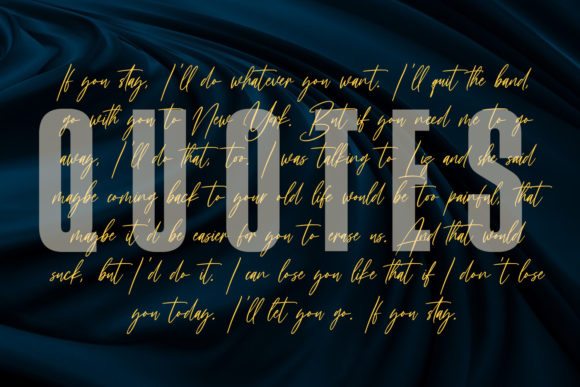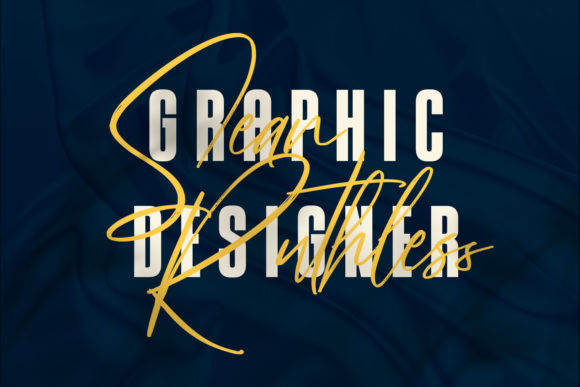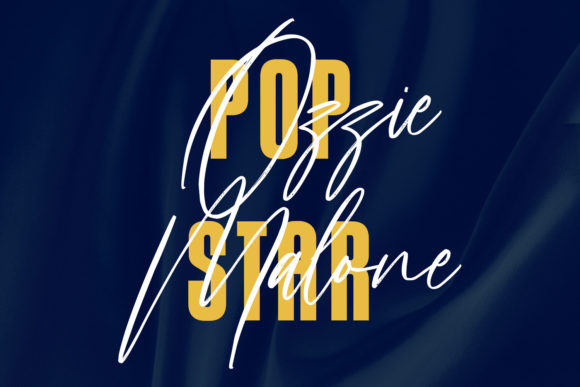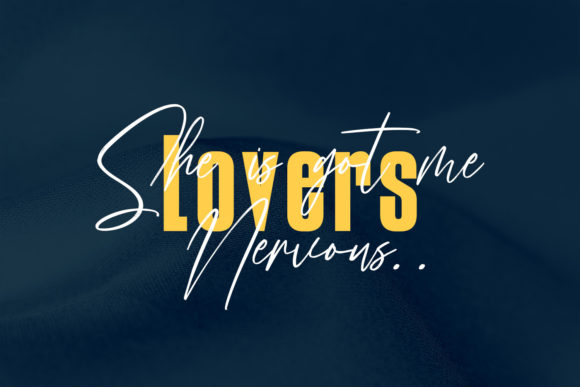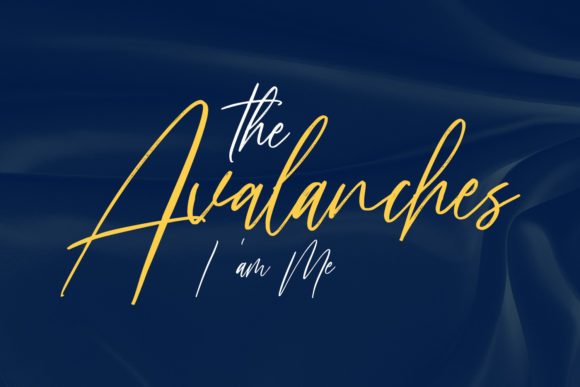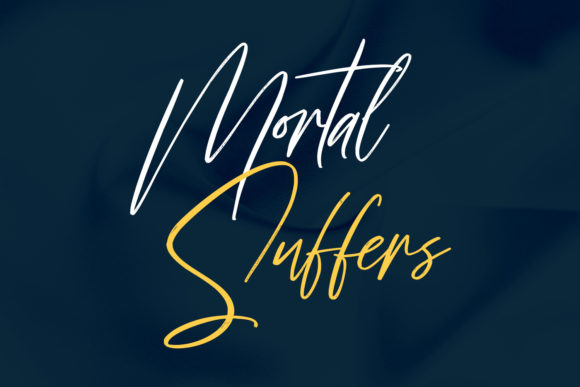
Introduction to Destinys Font
Have you ever been working on a creative project, pouring your heart and soul into it, only to feel like something is missing? Maybe it’s the perfect font to tie everything together, but you can’t seem to find the right one. I know that feeling, and that’s why I’m excited to introduce you to Destinys Font, a stunning and comprehensive duo font that’s sure to elevate your designs to the next level.
Destinys Font is a game-changer for designers, offering a unique combination of script and display styles that can be used together or on their own. With its high-quality design and transparent background, it’s the perfect resource for any creative project. And the best part? It’s available for free download, making it an invaluable addition to any designer’s toolkit.
Whether you’re working on a branding project, a logo, or a marketing campaign, Destinys Font is the perfect choice to give your designs a branded but friendly feel. In this article, we’ll dive deeper into the world of Destinys Font and explore its many benefits for designers.
Key Features of Destinys Font
- High-quality design: Destinys Font is designed with attention to detail and precision, making it perfect for creative projects that require a sophisticated look.
- Unique characteristics: Destinys Font features a unique blend of modern and vintage elements, making it perfect for creative projects that require a touch of elegance and sophistication.
Honest Review: Destinys Font
As a designer, I’m always on the lookout for high-quality design resources to elevate my creative projects. Recently, I had the chance to experiment with Destinys Font, and I’m excited to share my honest thoughts.
- ✨ The overall quality is impressive, with a clean and modern aesthetic that’s perfect for contemporary designs.
- ⚠️ The font family is relatively small, with only a few styles available. This might limit its versatility in certain design projects.
Overall, Destinys Font is a solid addition to any designer’s toolkit. While it may have some limitations, its high quality and free download make it a valuable resource for creative projects. I’ll definitely continue to use it in my designs moving forward.
Destinys Font is ideal for:
- Overlays and text effects
- Logo designs and branding
- Infographics and presentations
- Web design and digital marketing